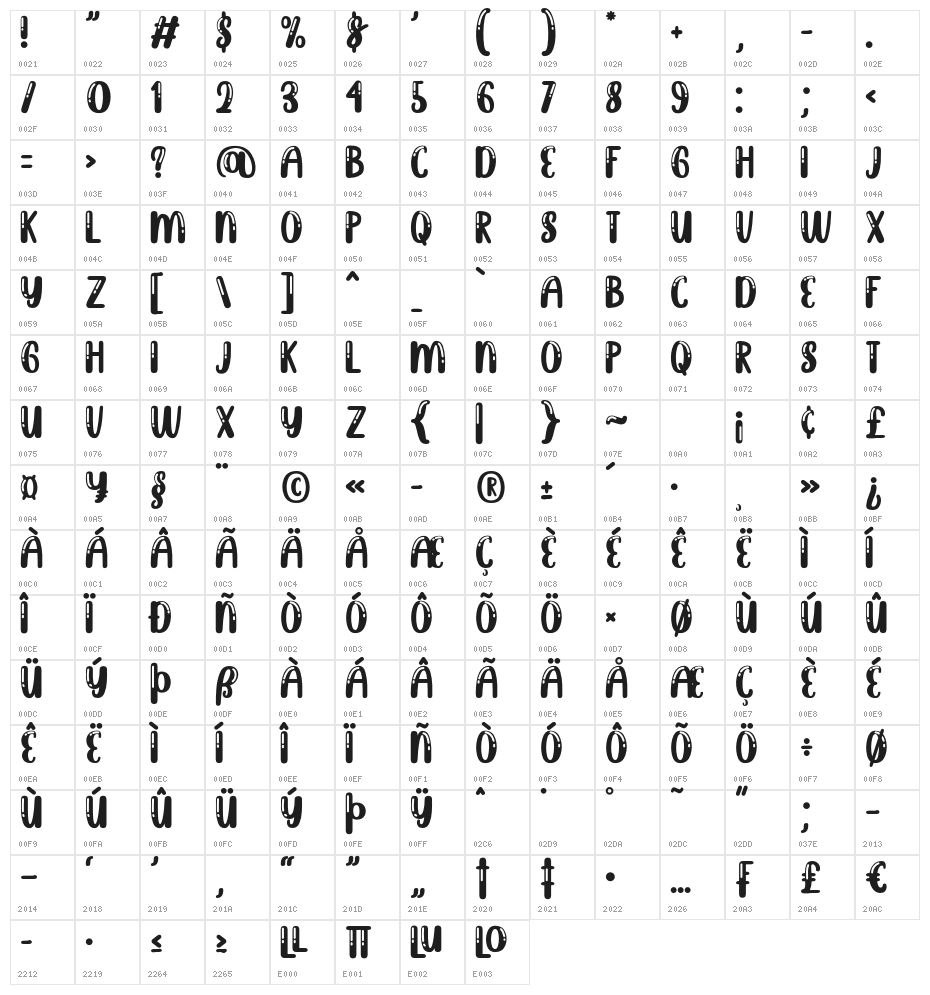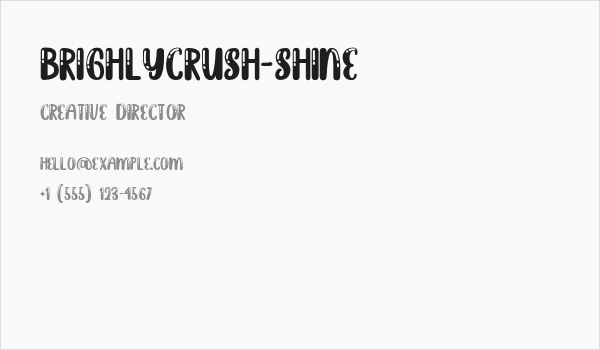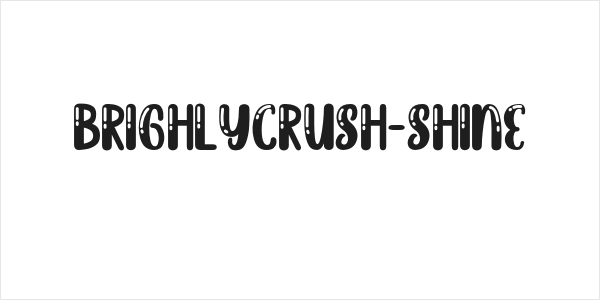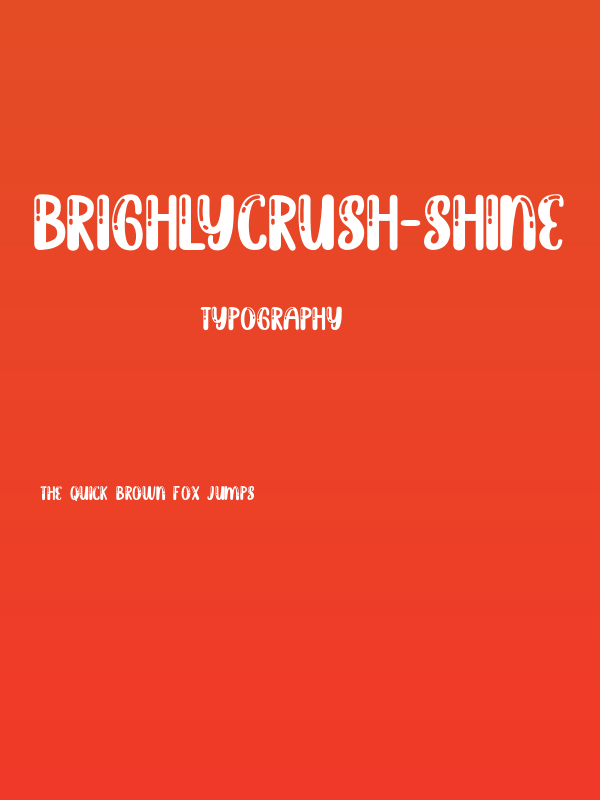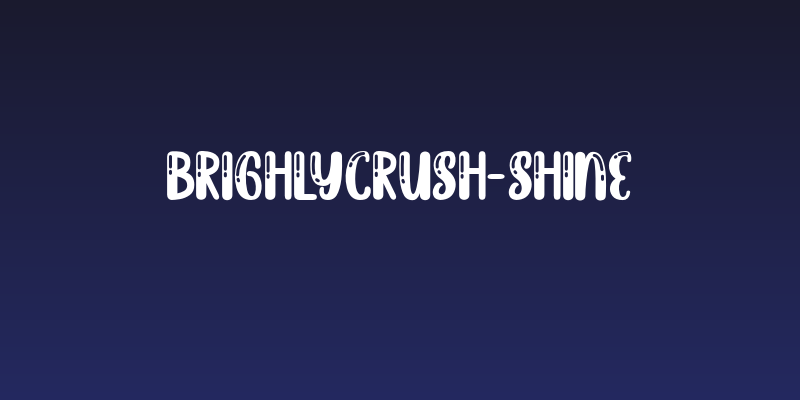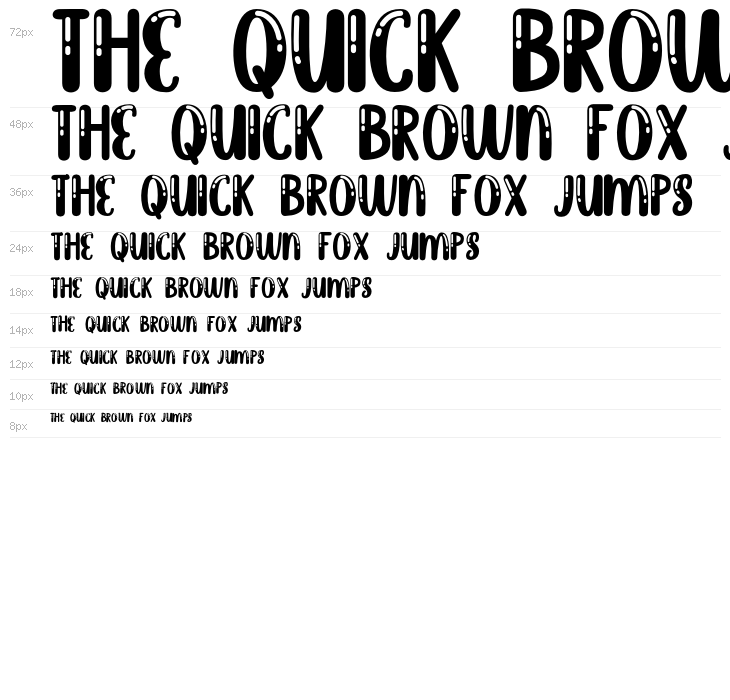
BrighlyCrush-Shine Font
BrighlyCrush-Shine Description
This playful and vibrant font features bold, rounded characters with a unique decorative touch. Each letter is adorned with small circular accents, giving it a lively and whimsical appearance. The font maintains a consistent thickness throughout, contributing to its bold and eye-catching style. It is designed to capture attention with its fun and energetic vibe, making it ideal for creative and informal projects. The numbers and special characters follow the same playful design, ensuring a cohesive look across all elements.
Overall StylePlayful, Whimsical
Proposed ProjectsPerfect for children's books, party invitations, playful branding, and creative posters.